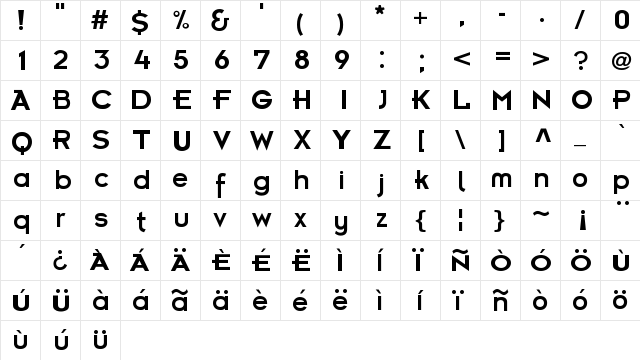
Futurama Bold Font Regular
Design Context for Futurama Bold Font Typeface
Futurama Bold Font channels digital-age aesthetics through its sharp, structured letterforms — ideal for brands that want to signal innovation. The heavy weight commands attention and anchors typographic hierarchies.
Pro Tip: Try Futurama Bold Font with generous letter-spacing in UI labels and navigation — the geometric forms benefit from room to breathe.